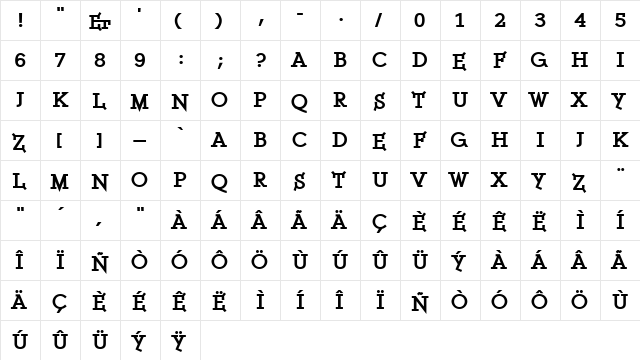
ETH Serif Black
Design Context for ETH Serif Typeface
ETH Serif carries the refined structure of traditional serif typography, with bracketed terminals and considered proportions that communicate credibility and craft.
Pro Tip: Set ETH Serif with slightly loose tracking in headlines to let each letterform's detail read clearly at display sizes.